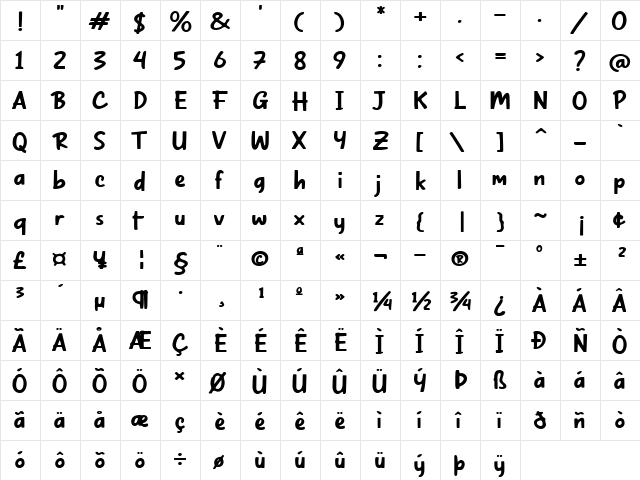
Wolland Regular
| Designer | Ali Hamidi |
Design Context for Wolland Typeface
Wolland is a composed and adaptable typeface that performs quietly and consistently across a wide range of design contexts.